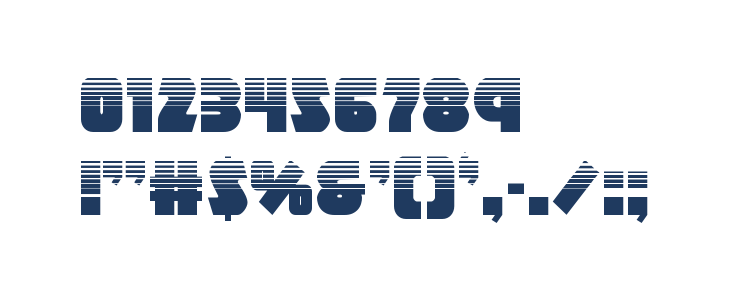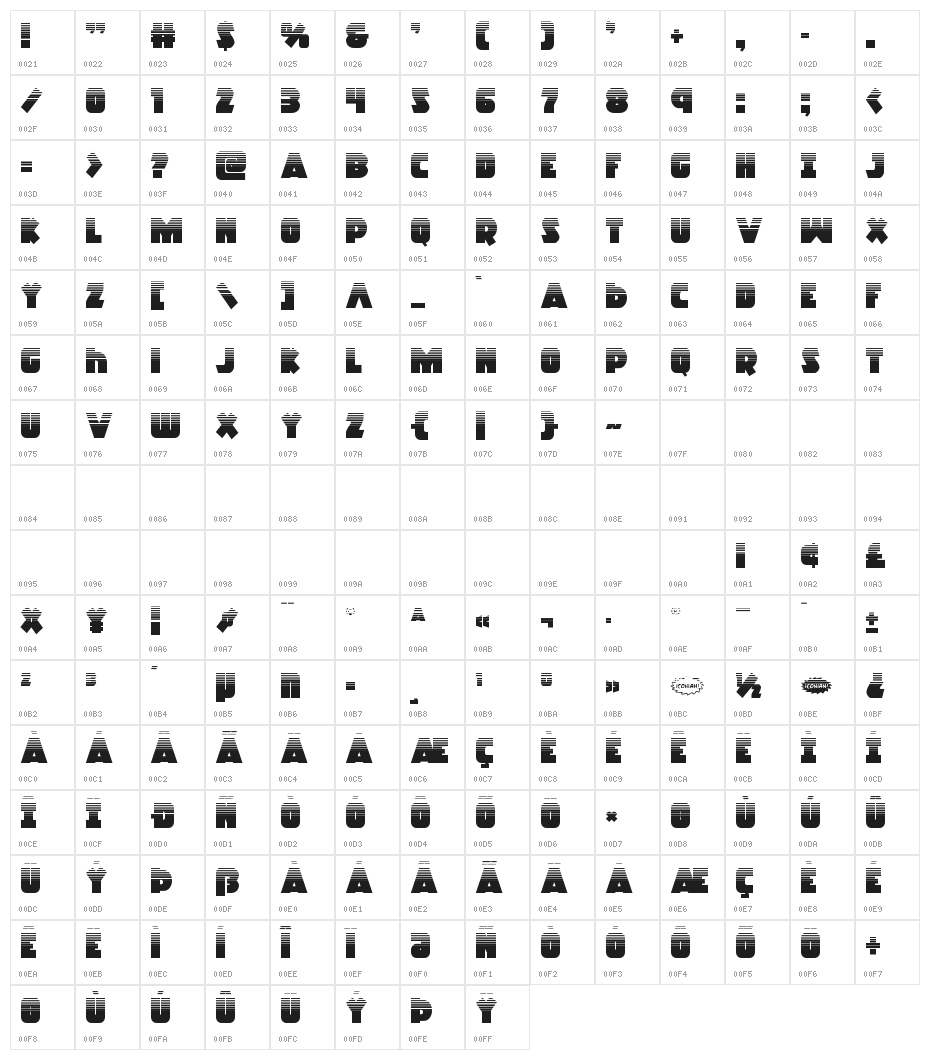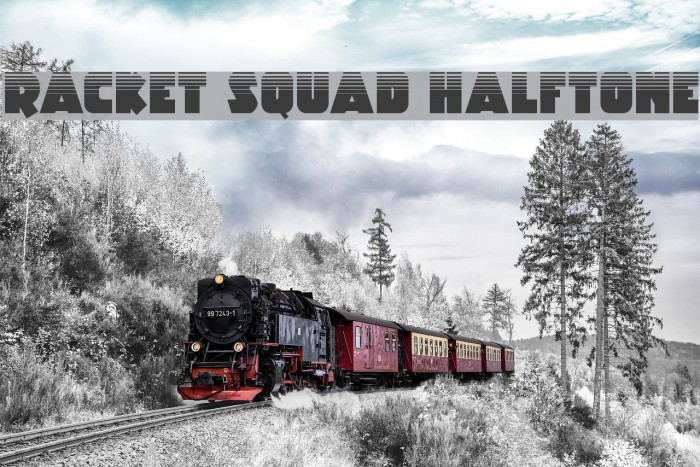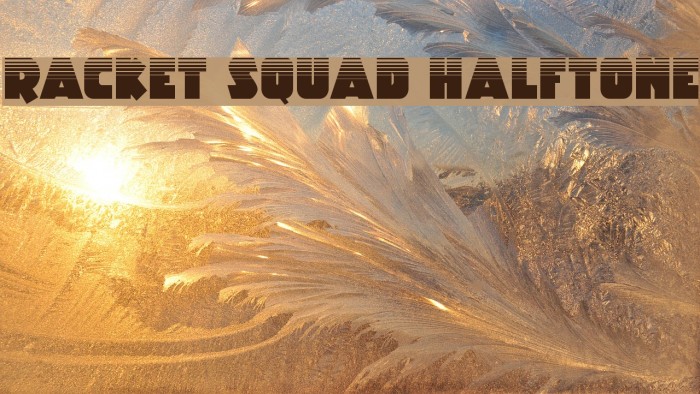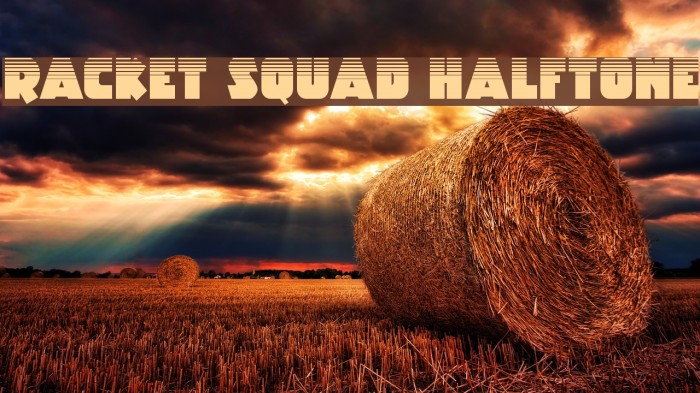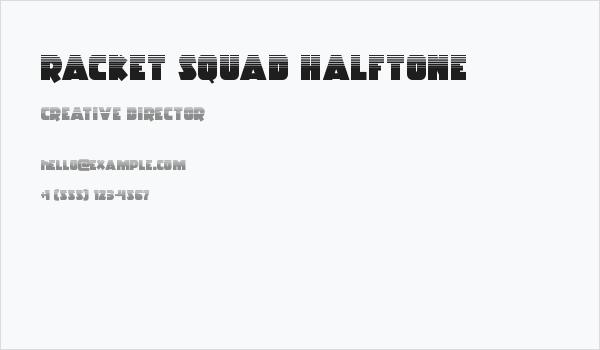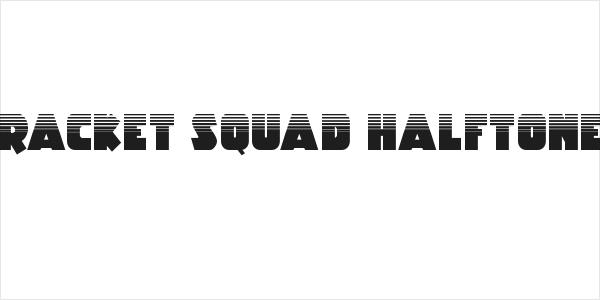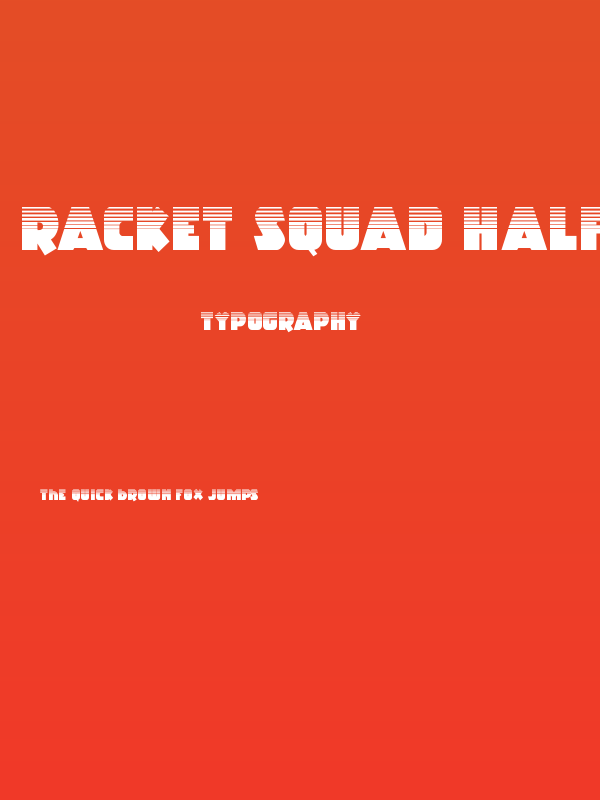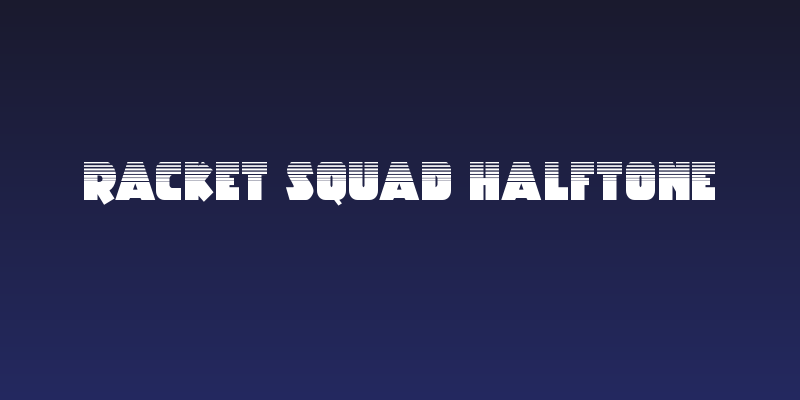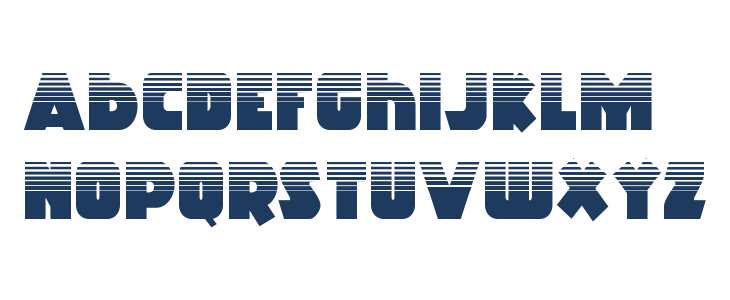
Racket Squad Halftone Font
Racket Squad Halftone Description
This font features a bold, geometric design with a distinct halftone effect that gives it a unique, textured appearance. The characters are constructed with solid black shapes interspersed with horizontal white stripes, creating a striking visual contrast. The uppercase and lowercase letters maintain a consistent style, with angular edges and a blocky structure that conveys strength and modernity. The numerals and special characters follow the same design principles, ensuring uniformity across all glyphs. This font's bold presence makes it ideal for attention-grabbing designs.